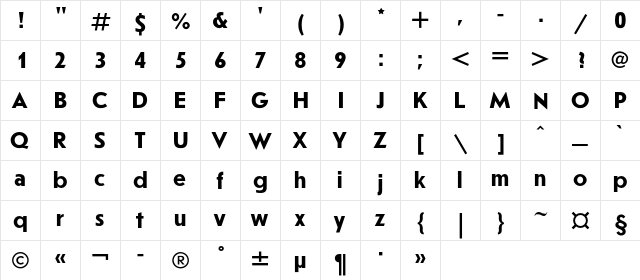
JournalSansC Bold Font Preview
JournalSansC Bold
JournalSansC Bold Font Details
Design Context for JournalSansC Typeface
JournalSansC offers clean, dependable letterforms without strong stylistic allegiance, making it a practical choice for designers who need flexibility. Its bold stroke weight gives it real presence on the page.
Pro Tip: Use JournalSansC in both headline and body roles to test its range before committing to a single application.